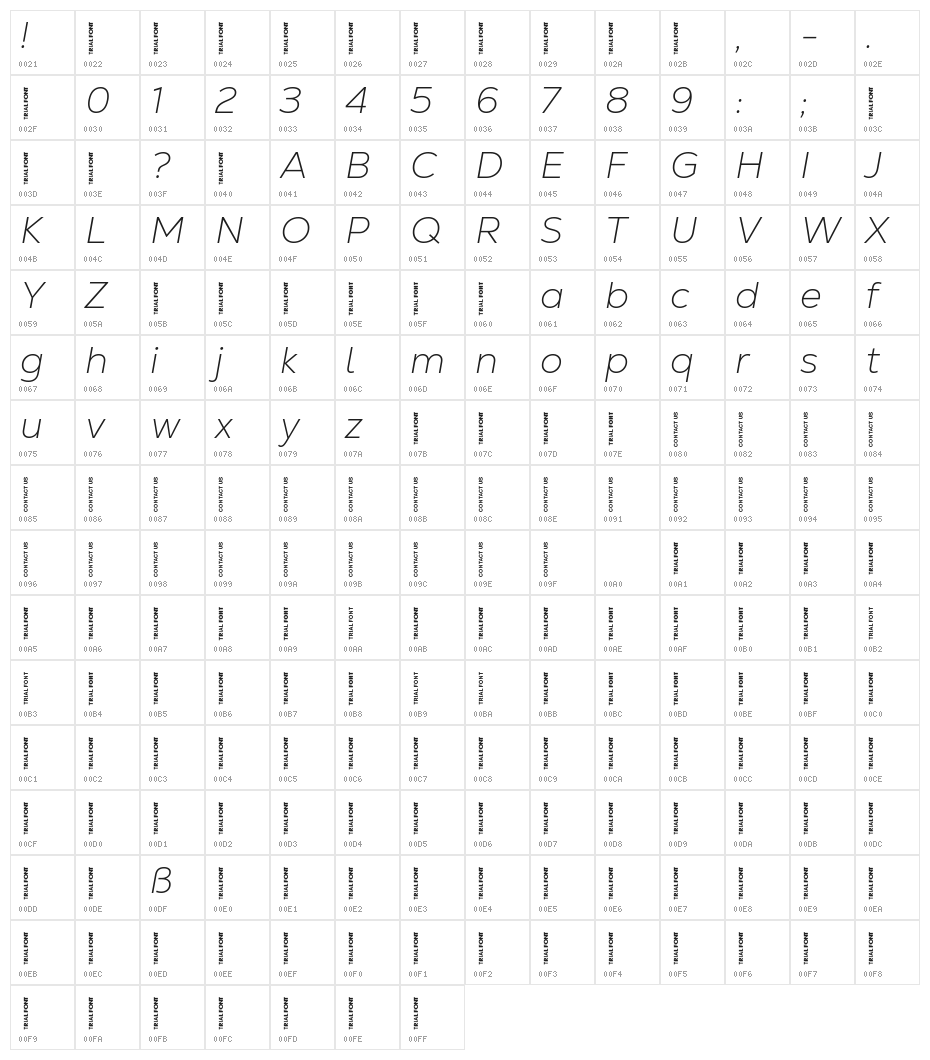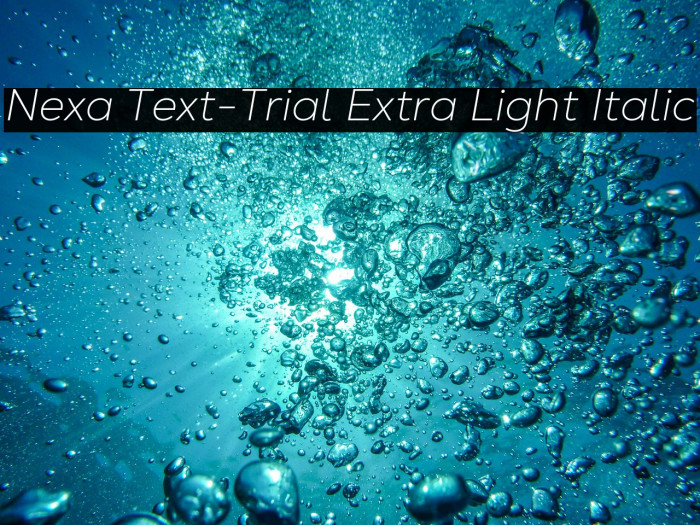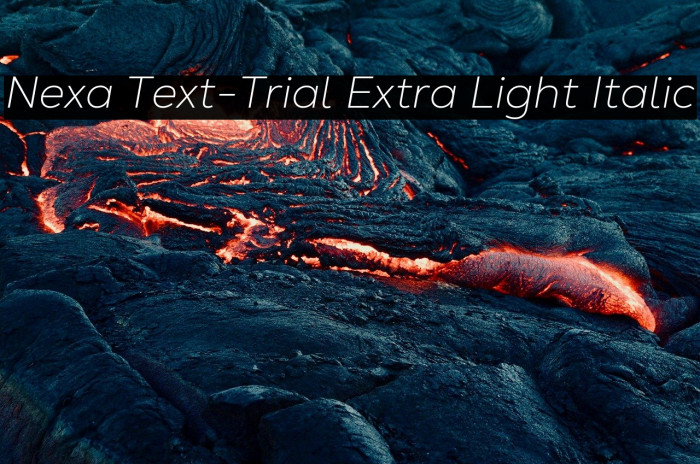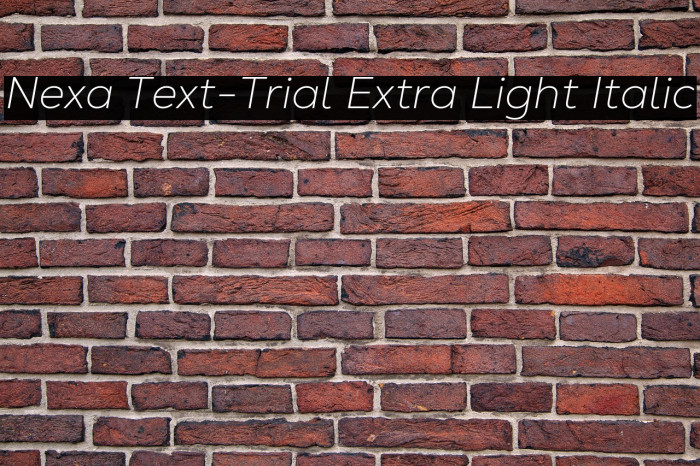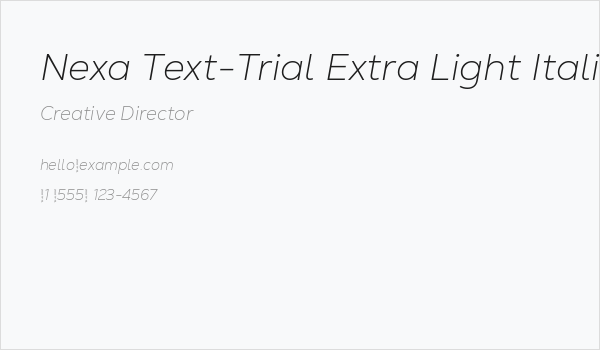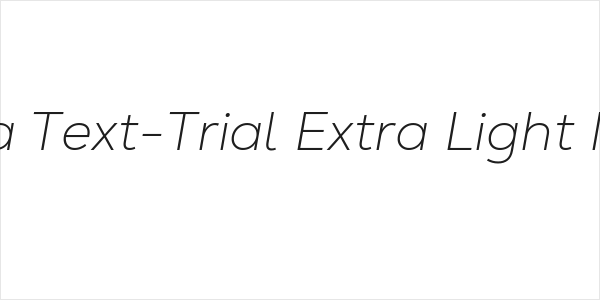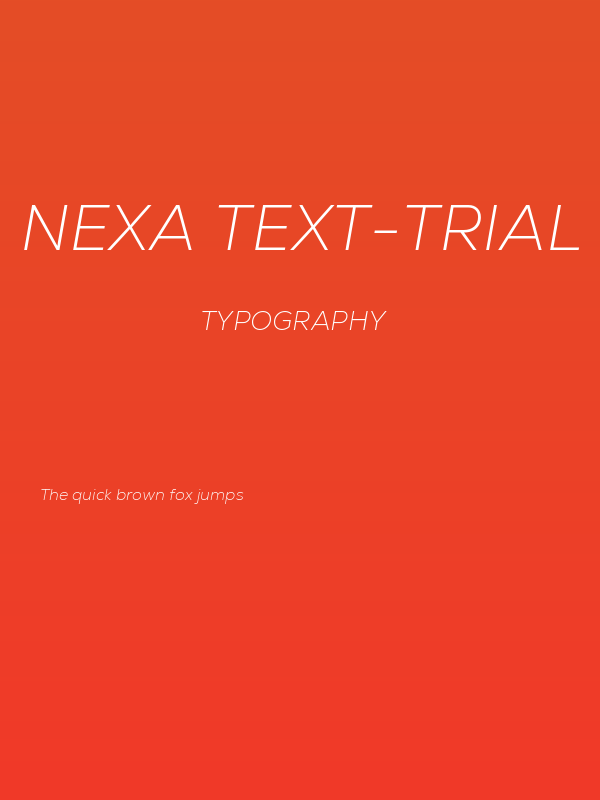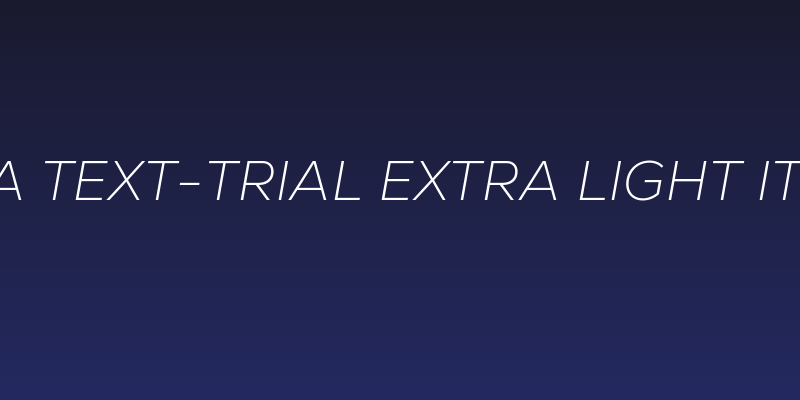
Nexa Text-Trial Extra Light Italic Font
Nexa Text-Trial Extra Light Italic Description
This font features a sleek and modern design with a clean, minimalist aesthetic. The characters are crafted with an extra-light weight, giving them a delicate and airy appearance. The italic style adds a subtle slant to the letters, enhancing the dynamic and fluid feel of the text. The sans-serif design ensures a contemporary look, making it suitable for a wide range of applications. The font maintains a consistent stroke width, contributing to its low contrast and uniform appearance. The character spacing is normal, providing a balanced and readable text flow.
| Proposed Projects | Ideal for modern branding, elegant invitations, minimalist websites, and stylish editorial layouts. |